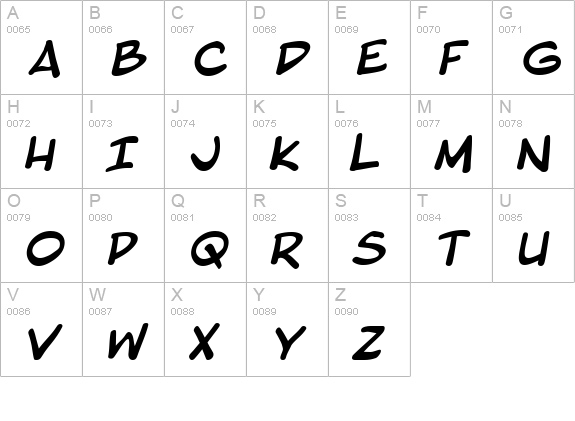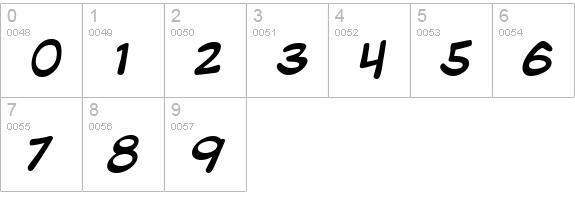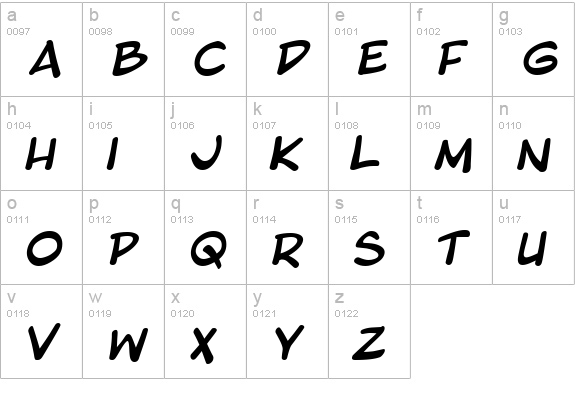
Blambot Pro Italic is a distinctive, italic variant in the Blambot typeface family \xE2\x80\x94 well suited to design and typography projects.
Blambot Pro Italic font is a sleek and stylish typeface that exudes elegance and sophistication. Its slanted design adds a touch of modernity to any text, making it perfect for use in various design projects. The flowing curves and sharp edges of Blambot Pro Italic create a harmonious balance that is pleasing to the eye. What's even better is that this gorgeous font is available for free download at FontsMarket.com. Whether you're working on a professional project or simply want to enhance your personal creations, Blambot Pro Italic is the ideal choice. So don't miss out on the opportunity to add this versatile and captivating font to your collection today!